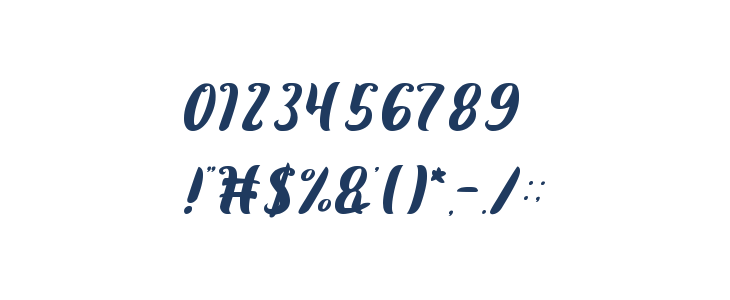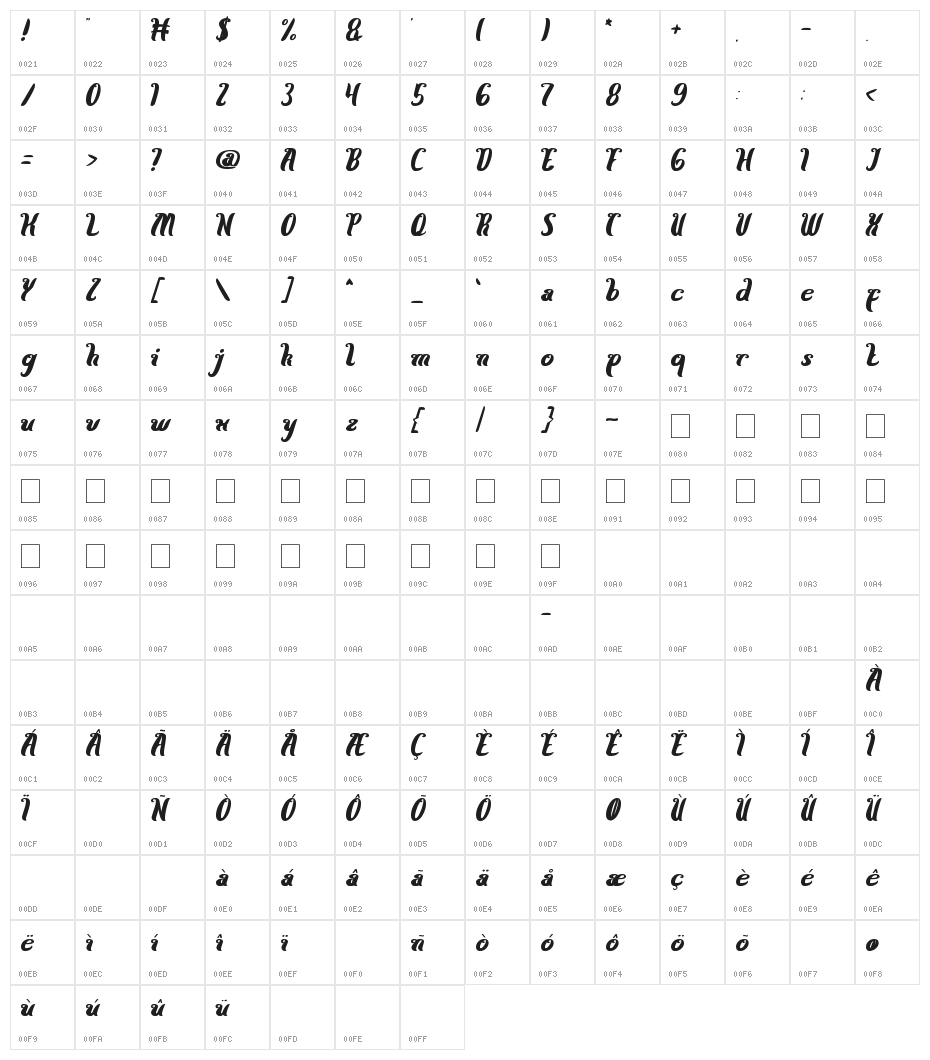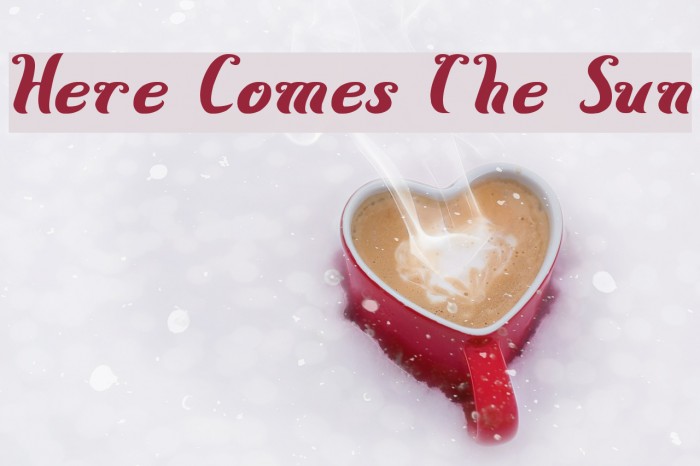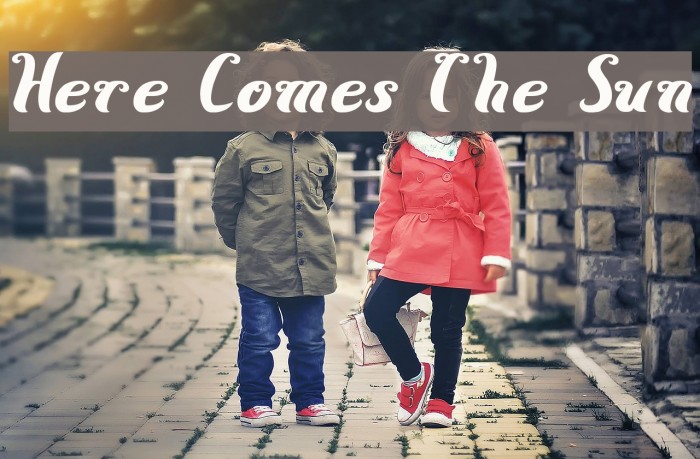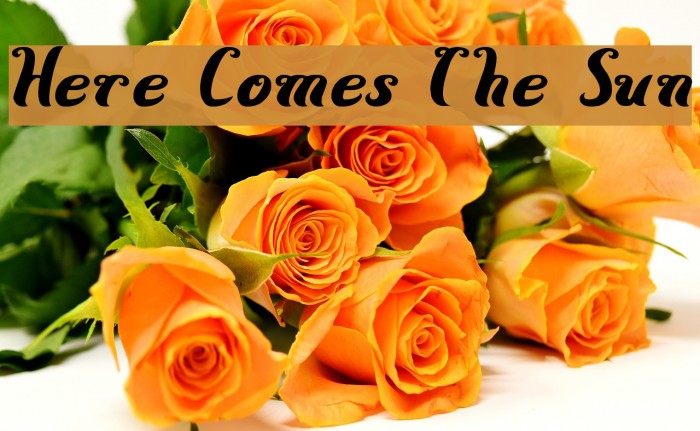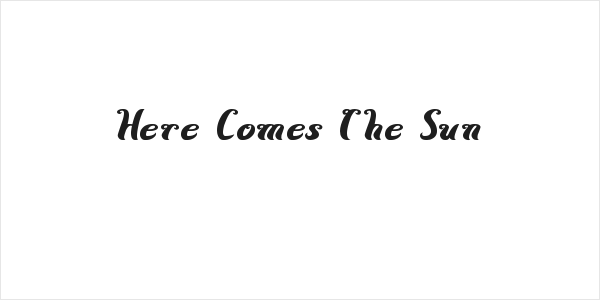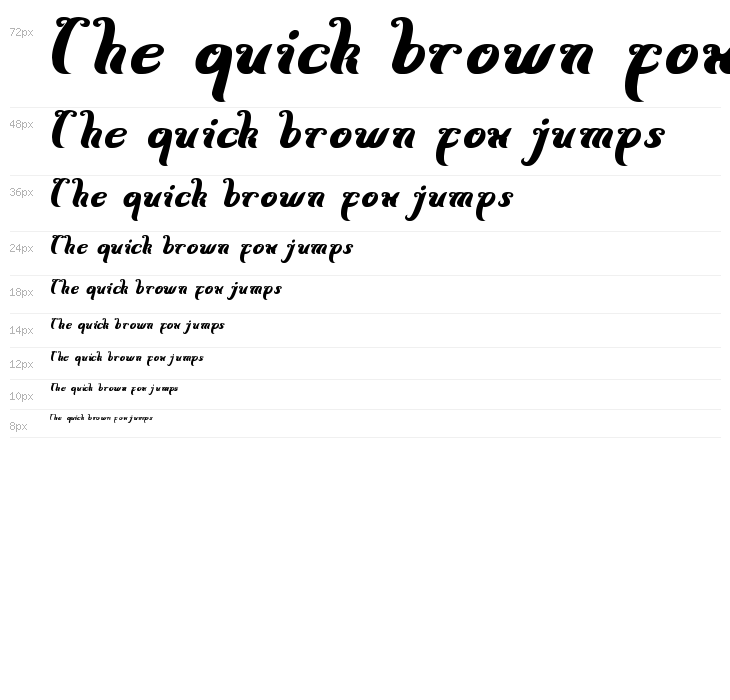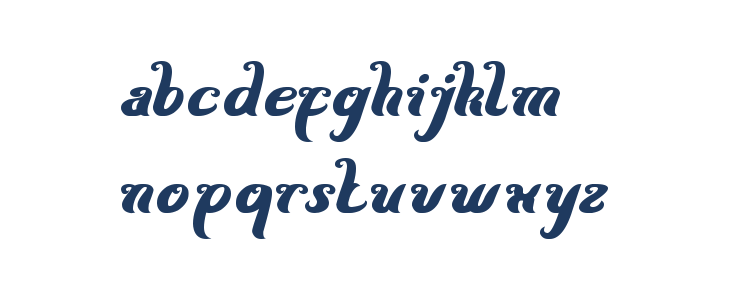
Here Comes The Sun Font
Here Comes The Sun Description
This font exudes a playful and bold character with its thick, flowing strokes and whimsical curves. Each letter is crafted with a sense of movement, giving it a dynamic and lively appearance. The uppercase letters are particularly striking, with their exaggerated serifs and swashes that add a touch of elegance and flair. The lowercase letters maintain this playful style, with a slightly more subdued approach, making them versatile for various design applications. The numbers and special characters are equally expressive, ensuring consistency across all glyphs. This font's unique style makes it ideal for projects that require a sense of fun and creativity.
| Overall Style | Playful, Creative |
| Proposed Projects | Perfect for children's books, playful branding, event invitations, and creative posters. |